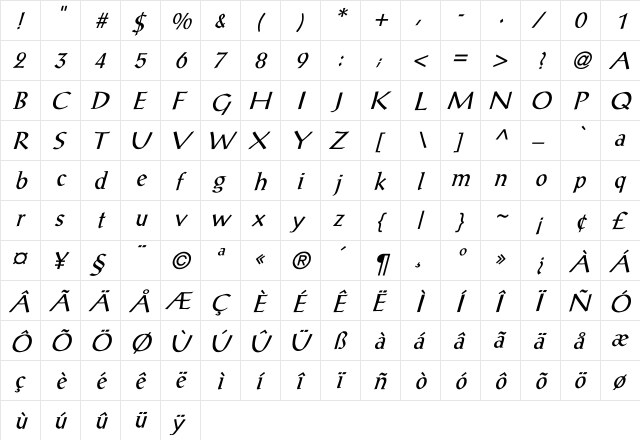
PostAntiqua-Roman Italic Italic
Design Context for PostAntiqua-Roman Italic Typeface
PostAntiqua-Roman Italic is a composed and adaptable typeface that performs quietly and consistently across a wide range of design contexts. Its italic angle brings a sense of urgency and motion to the letterforms.
Pro Tip: Use PostAntiqua-Roman Italic for emphasis, pull quotes, and subheadings where its slanted energy can add rhythm to the layout.